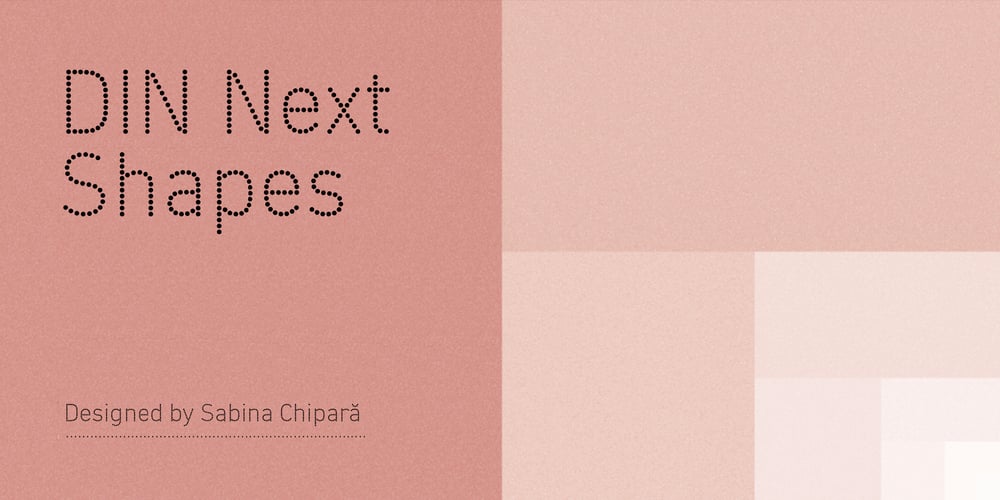
DIN Next Shapes Font Family was designed by Akira Kobayashi, Monotype Design Studio, Sabina Chipară and published by Monotype. DIN Next Shapes contains 4 styles and family package options. Sabina Chipară’s DIN Next Shapes typeface is a twist on the original German industrial classic, taking its skeleton and re-clothing it in dots, hearts, snowflakes and stars. The design offers a more approachable and whimsical tone of voice than the original, while maintaining all the legibility and clarity of form that makes DIN Next such a reliable and versatile design. It works in harmony with DIN Next, and is particularly suited for designers looking to be a little more expressive. DIN Next Shapes includes four fonts: Dots, Flakes, Hearts and Stars, and has pan European language support including Greek and Cyrillic. It also has OpenType features including stylistic alternatives, ligatures and fractions.